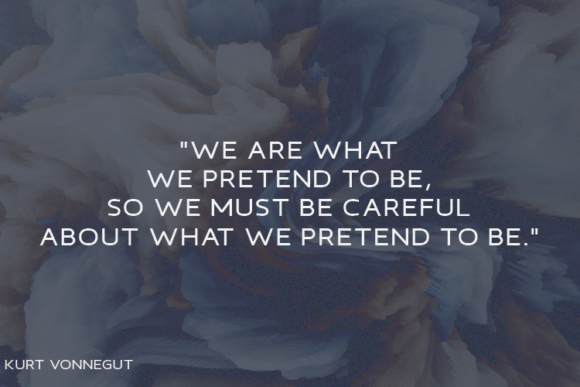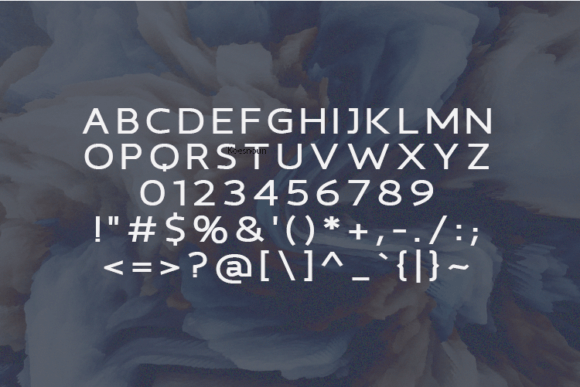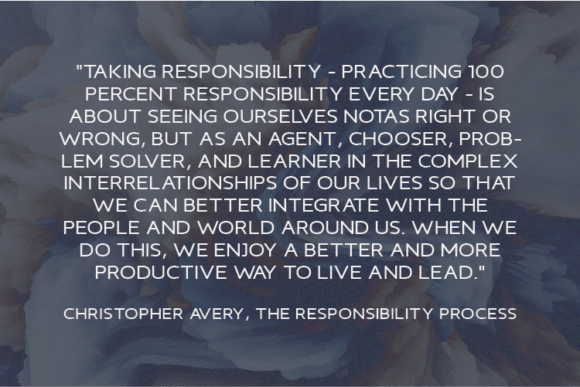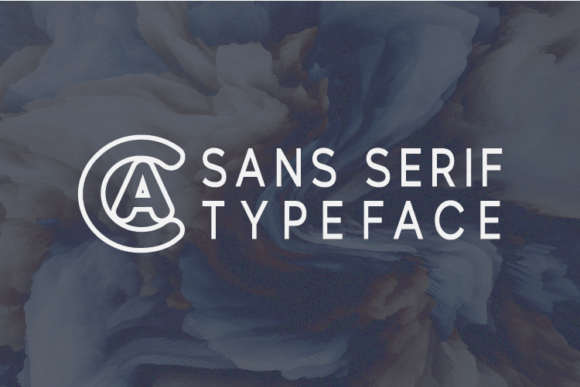
Introduction to Koesnoun Font
Koesnoun is a modern, classy sans serif typeface.
Extremely versatile, this typeface is perfect for logos, weddings, invitations, quotes, advertisements, print, magazines, and more .
Key Features of Koesnoun Font
Why Choose Koesnoun Font?